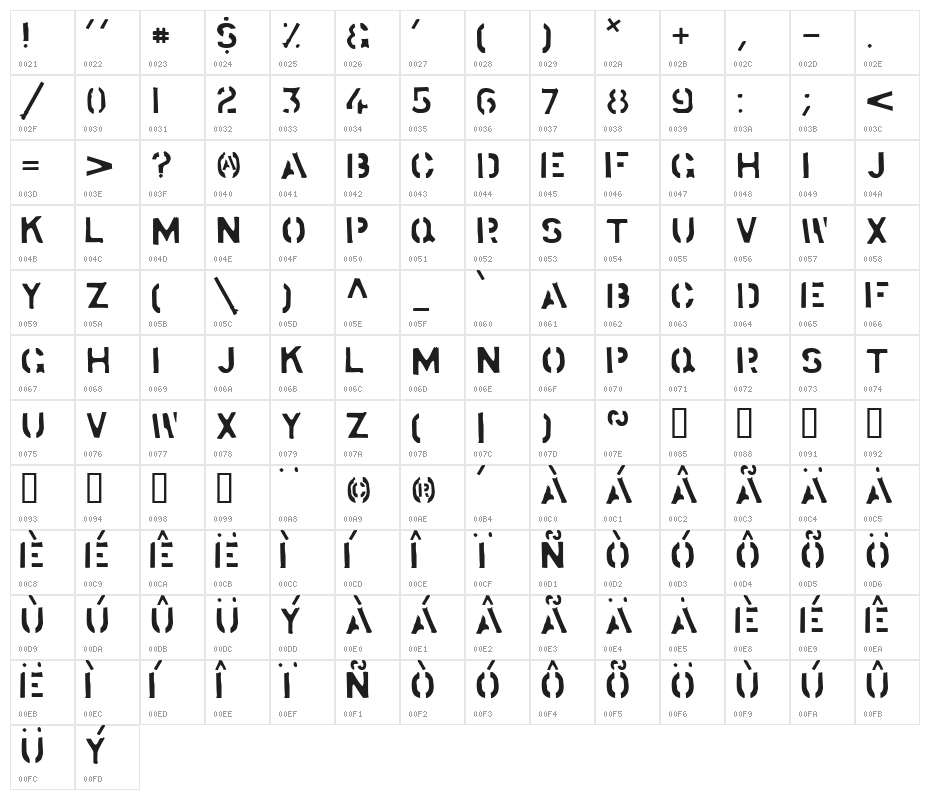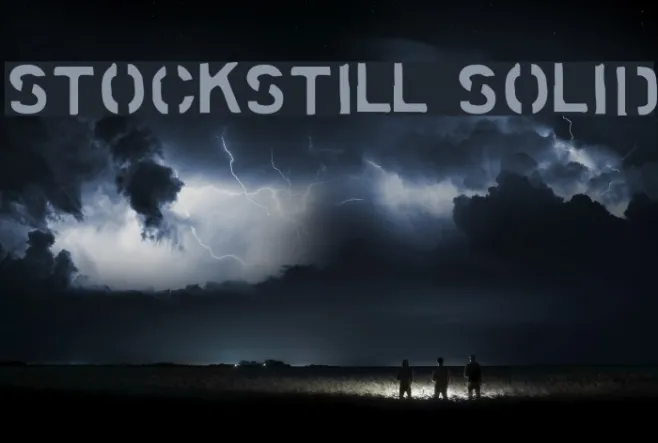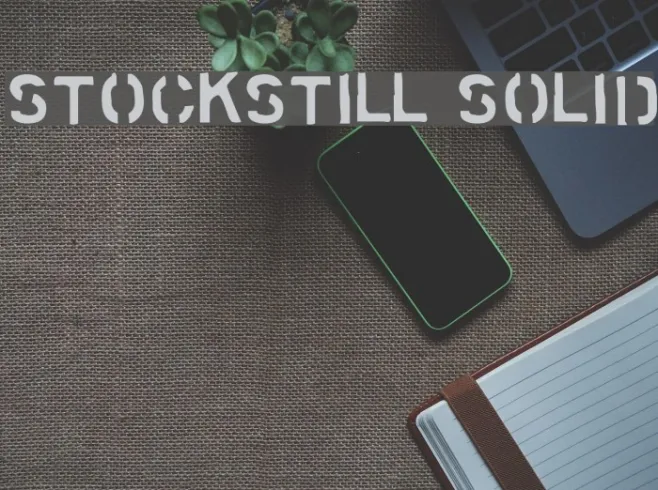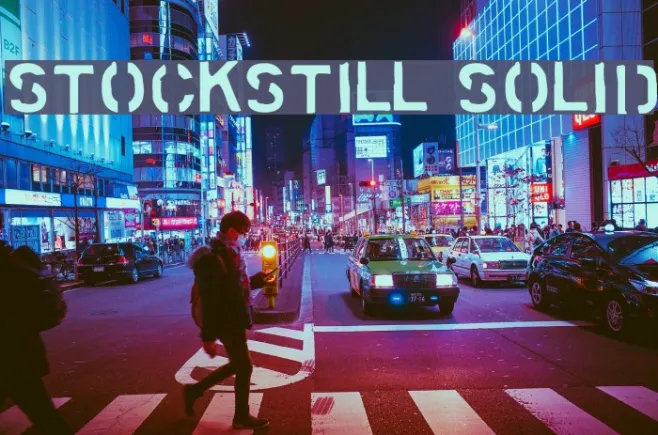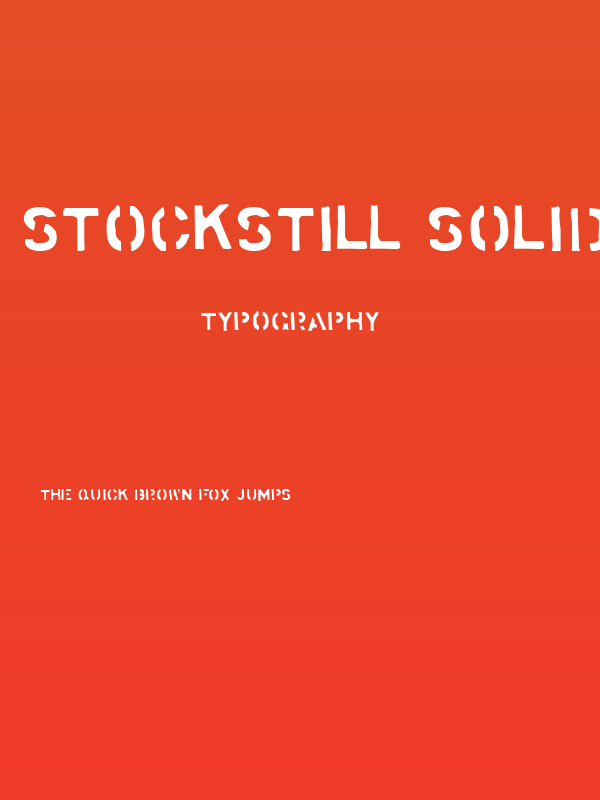
Stockstill Solid Font
Stockstill Solid Description
This font features a bold, stencil-like design with strong geometric shapes and high contrast. The characters are cut with sharp angles and distinct gaps, creating a rugged and industrial feel. The uppercase letters are uniform in height, while the numbers and special characters maintain the same boldness and style. The font's unique cut-out sections give it a dynamic and eye-catching appearance, making it suitable for impactful and bold designs. The overall aesthetic is modern and utilitarian, with a touch of vintage military influence.
| Overall Style | Modern, Industrial |
| Proposed Projects | Ideal for posters, branding, packaging, and signage that require a strong, industrial look. |